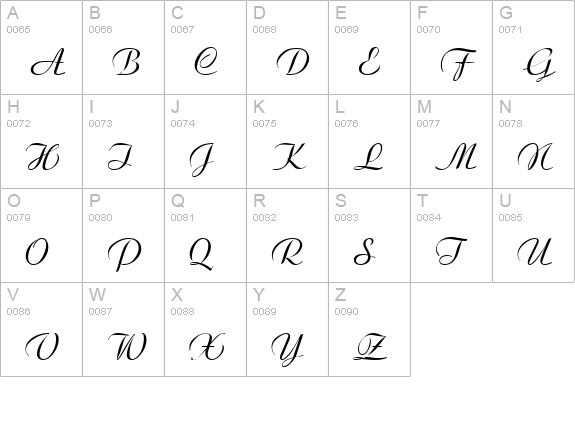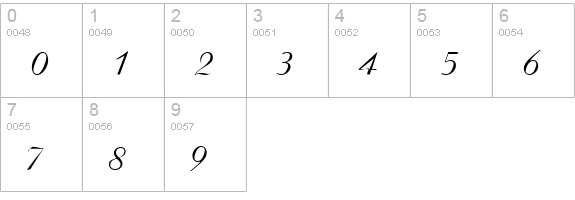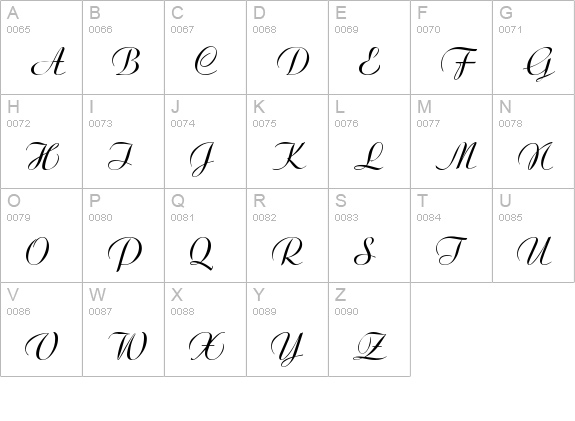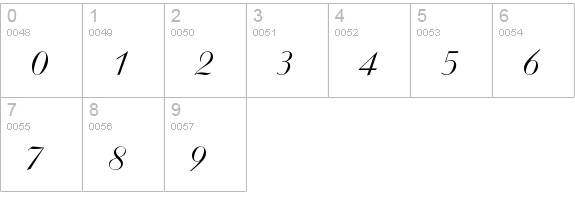
Natalie Font Details
Natalie font is a stunning typeface that exudes elegance and sophistication. With its graceful curves and stylish letterforms, this font is perfect for adding a touch of class to any design project. Whether you're creating wedding invitations, branding materials, or social media graphics, Natalie font is sure to make a lasting impression. The best part? Natalie font is completely free to download at FontsMarket.com. This means you can easily access this beautiful typeface and use it in your designs without any cost. Don't miss out on the opportunity to enhance your projects with the timeless charm of Natalie font. Download it today and elevate your design work to the next level.